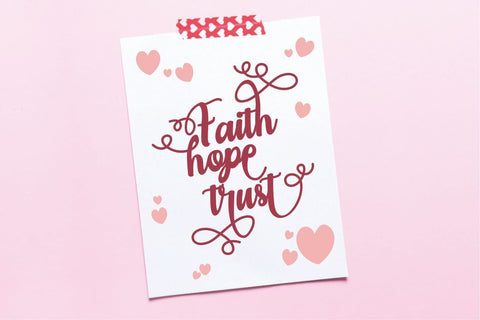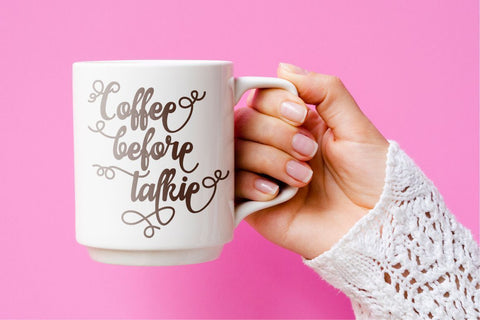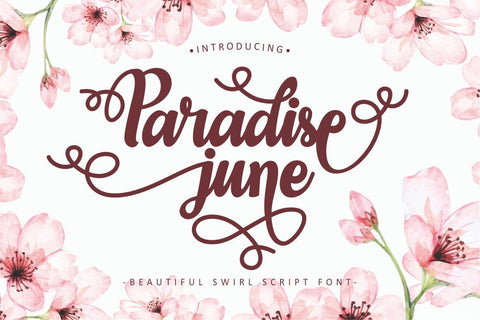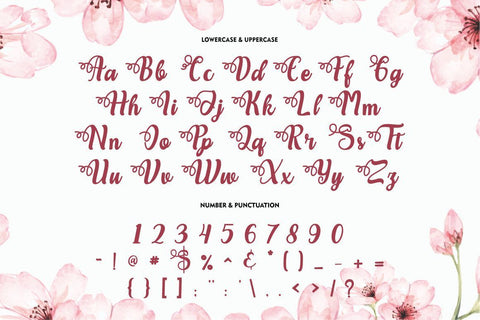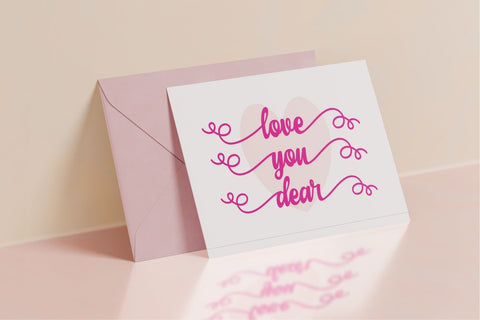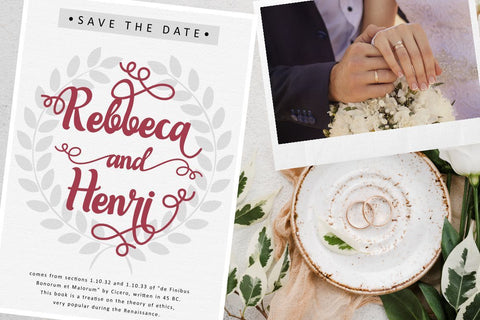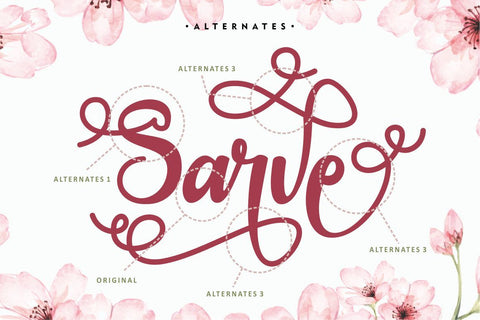
Paradise June - Beautiful Swirl Script Font
Paradise June is a beautiful swirl script font. This font is feminime, elegant, messy and modern.
This font has a very beautiful swirl, perfect for use in wedding and invitation projects. Also very suitable for crafting or lettering.
Paradise June perfect for wedding event, anniversary, birthday,greeting cards, logotype, branding, wedding invite and card, elegant logo, poster, packaging, stationery, website, and any other projects.
Come with open type feature with a lot of alternates, its help you to make great lettering.
This font is also support multi language.
Comes with feature :
- Alternate
- Number, Punctuation And Symbols
- Multilanguage Support.